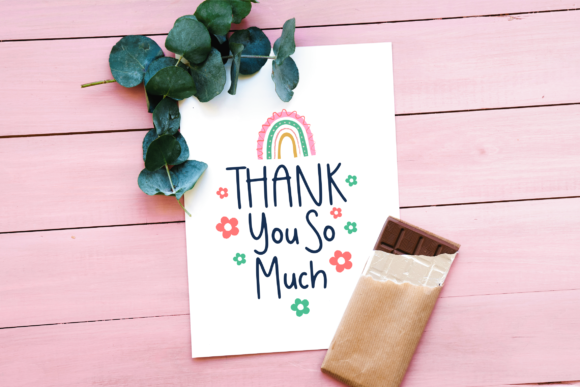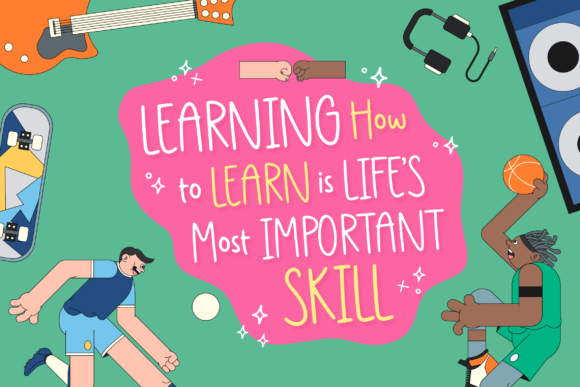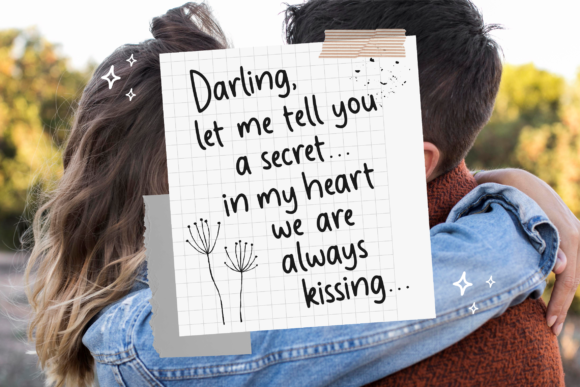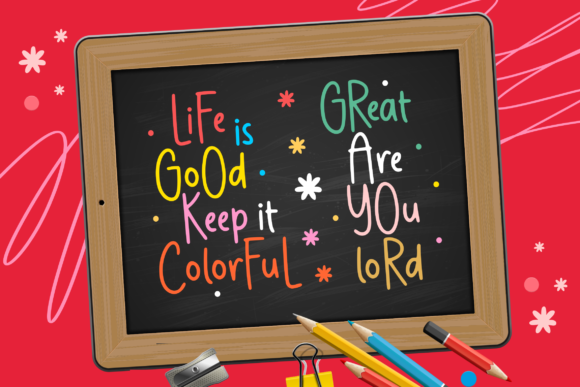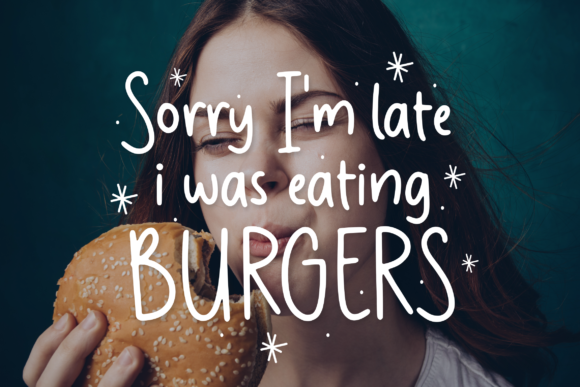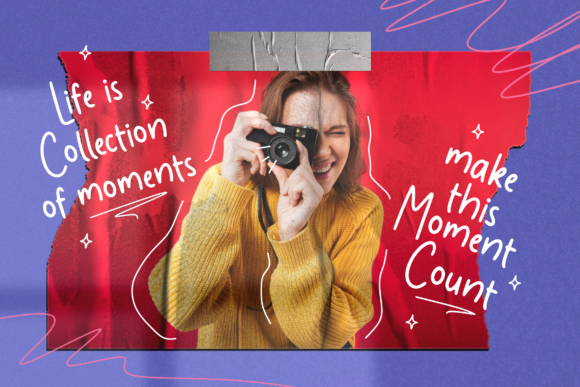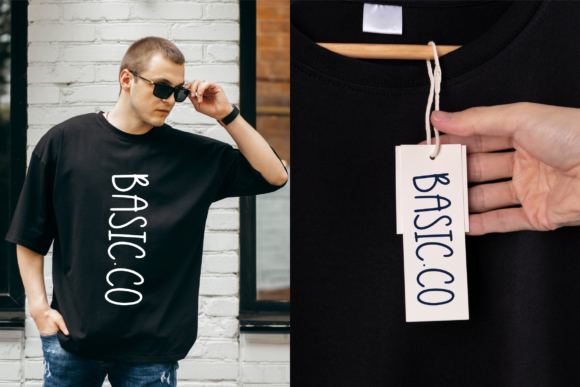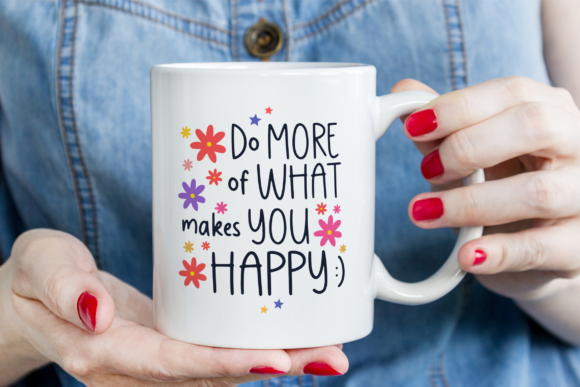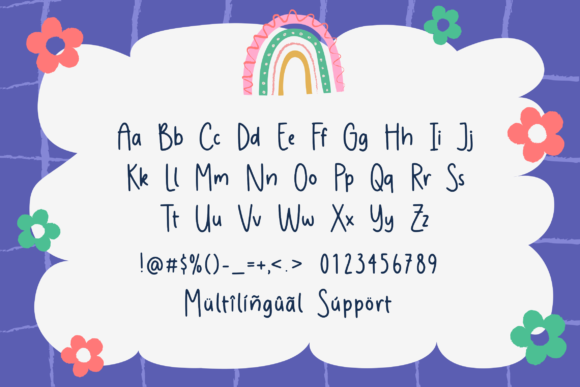
About Luckymoon Font
Luckymoon is a delicate handwritten font. It embodies playfulness and authenticity and is the perfect choice for any children activity or school project. Add this sweet lettered font to your designs and notice how it makes them come alive!